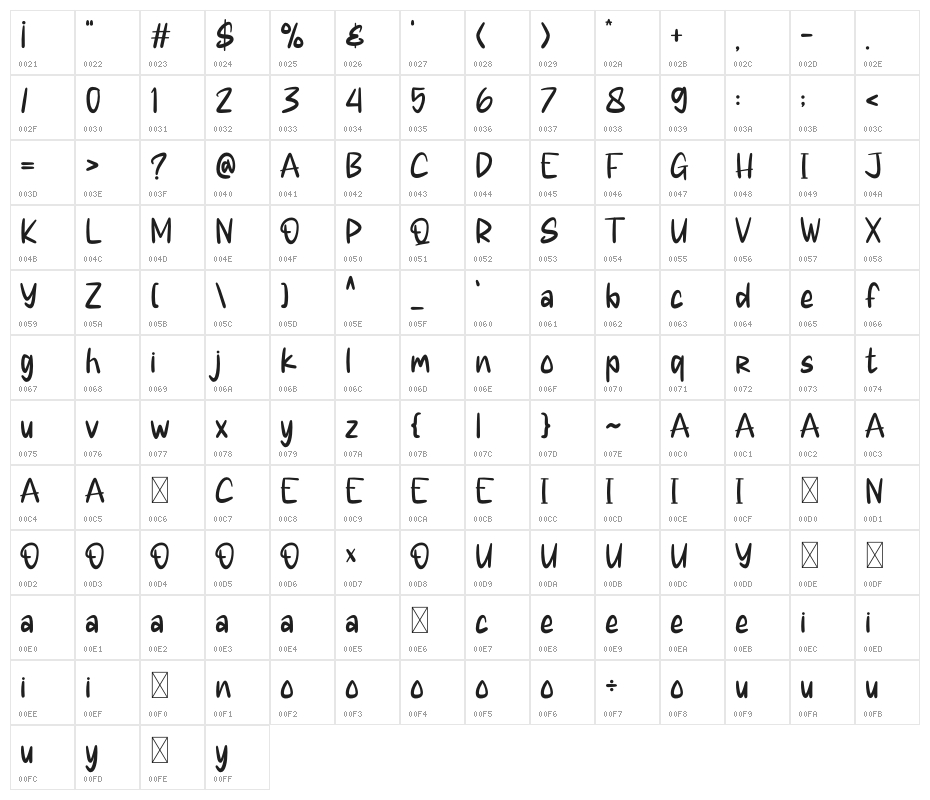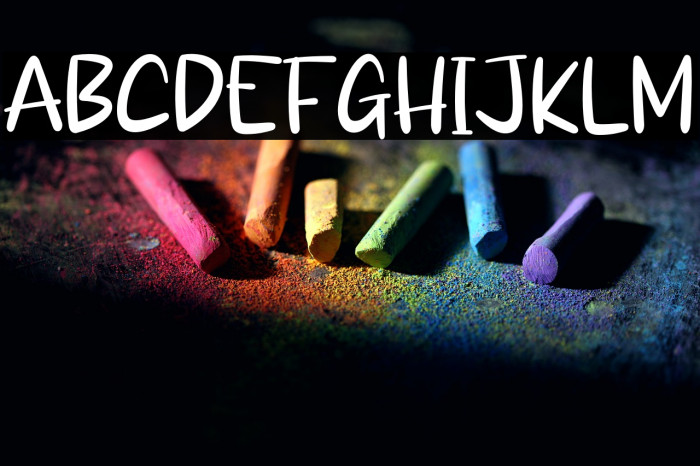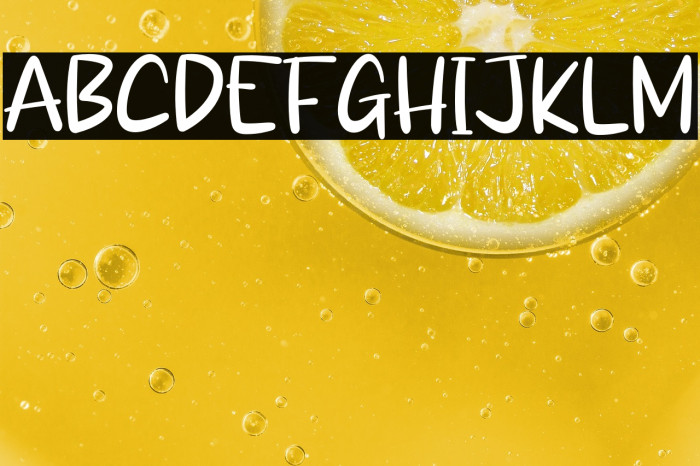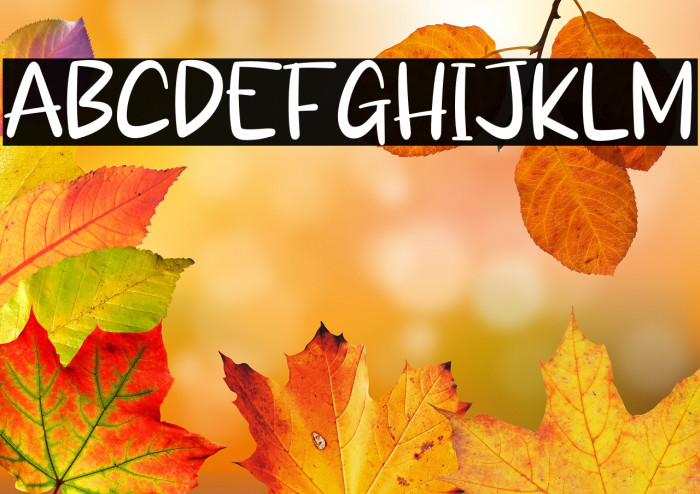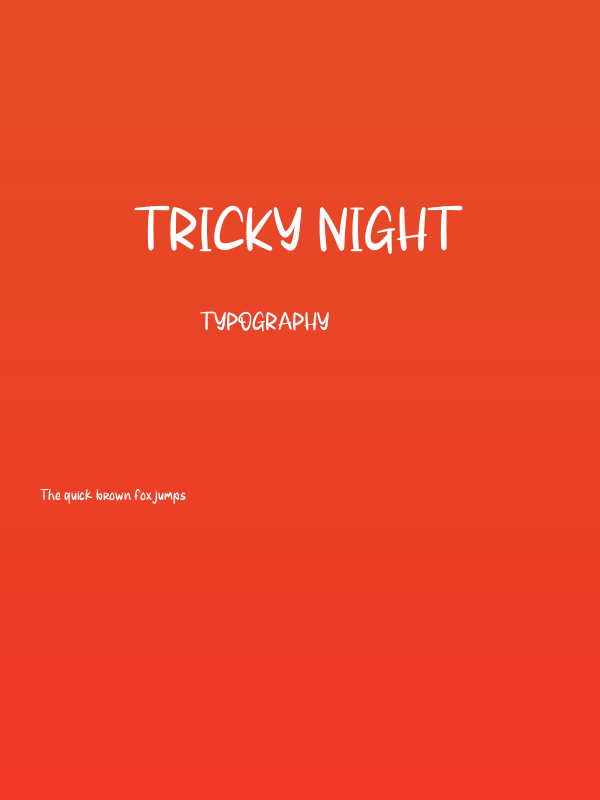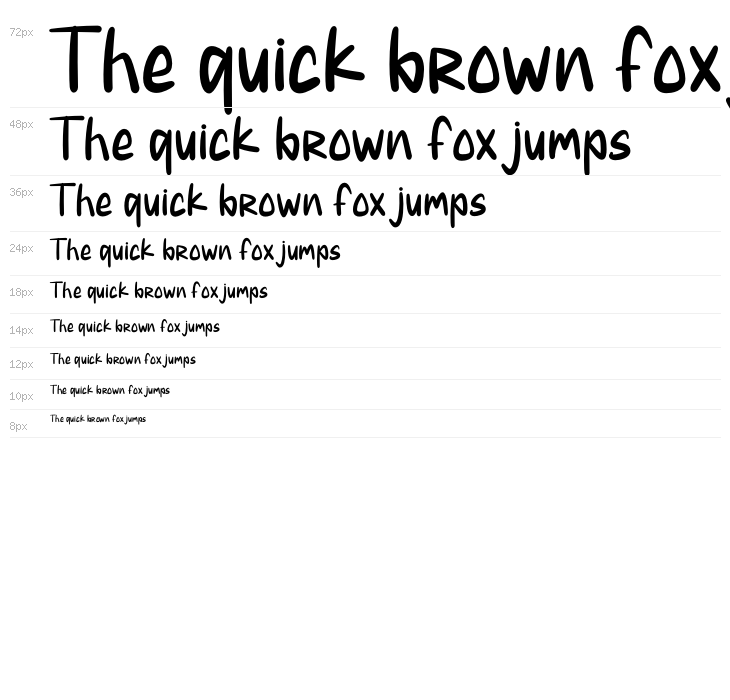
Tricky Night Font
Tricky Night Description
This playful and energetic font features a handwritten style with a casual and informal appearance. The letters are slightly slanted, giving a dynamic and lively feel. The strokes are bold and rounded, with a consistent thickness throughout, which adds to its legibility. The characters have a whimsical touch, with some letters featuring unique curves and loops that enhance its playful nature. This font is perfect for projects that require a fun and approachable aesthetic, making it ideal for children's books, playful branding, or creative invitations.
| Overall Style | Playful |
| Proposed Projects | Children's books, playful branding, creative invitations, casual posters, and social media graphics. |